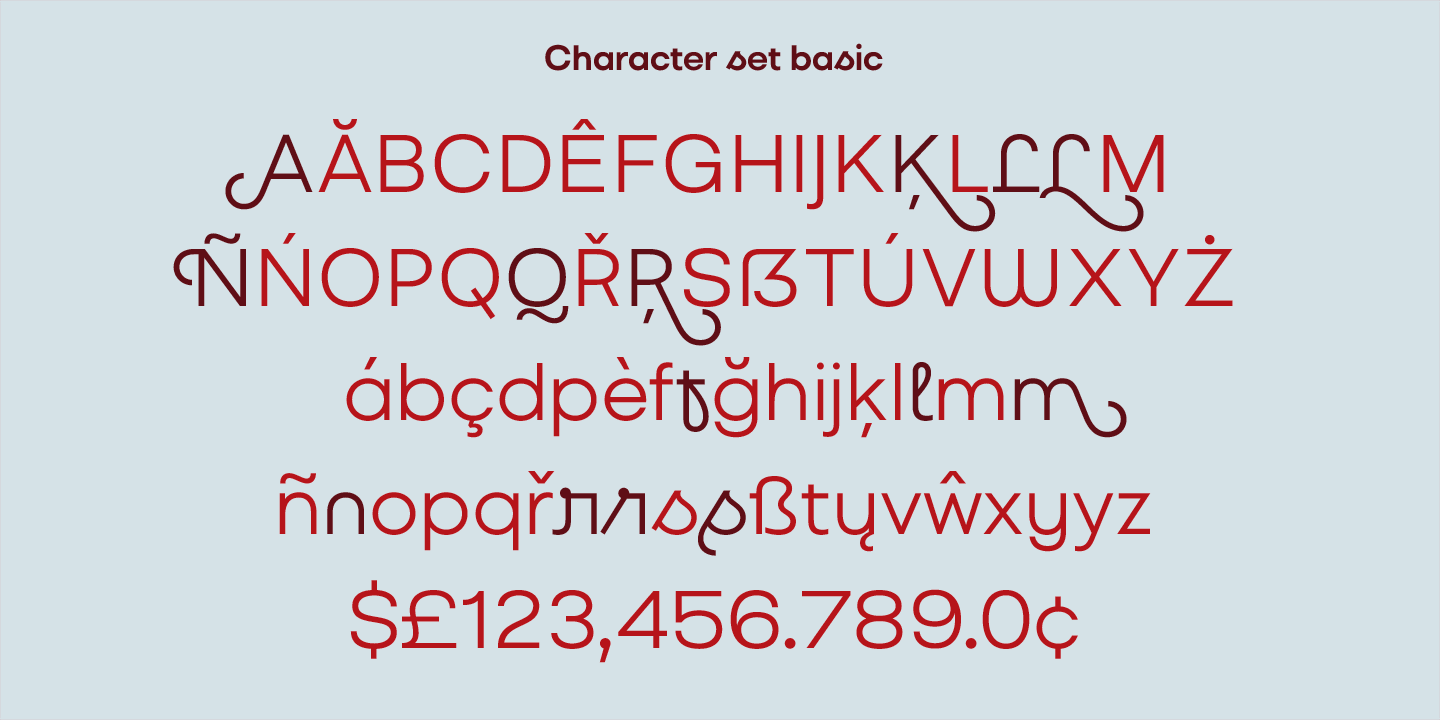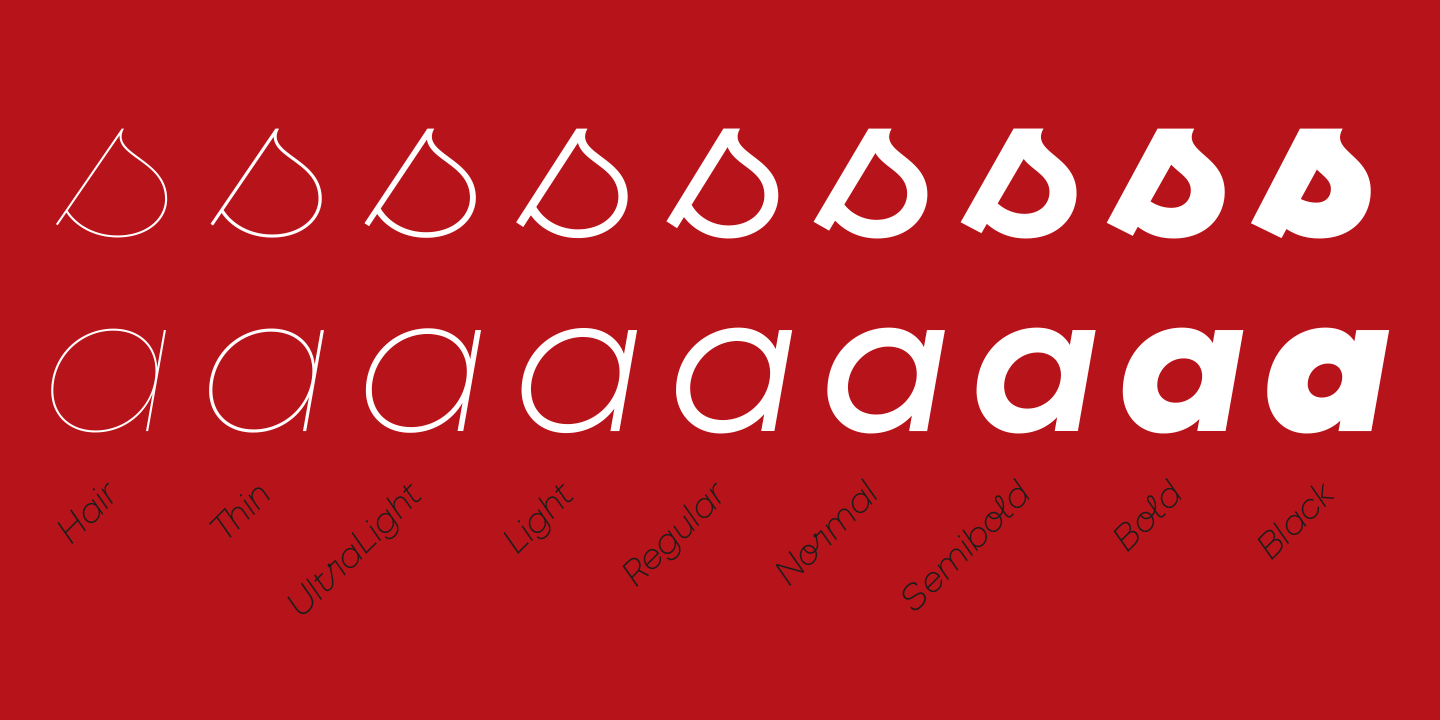
About Liliana
Liliana is a geometrical typeface, born throughout comprehensive formal studies while testing new ways of displaying certain words and sentences. The essential structure of Liliana is very conservative: It can look similar to other geometrical typographies,…